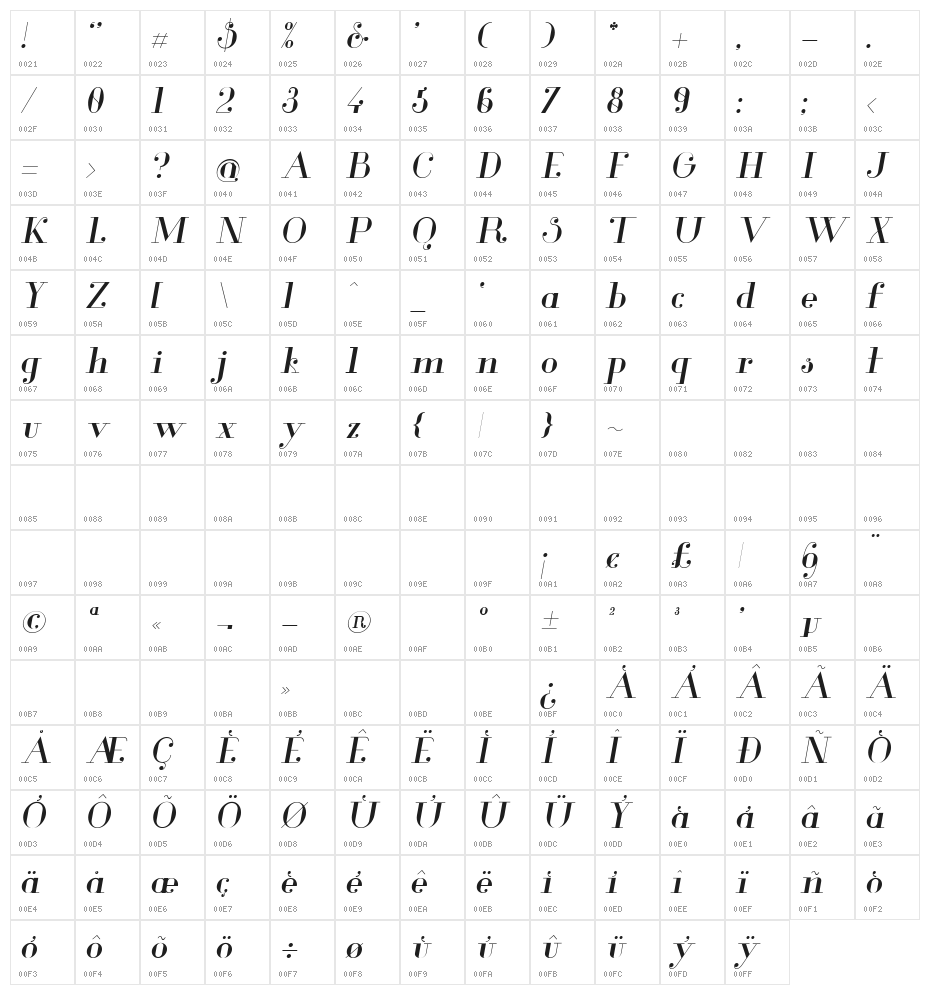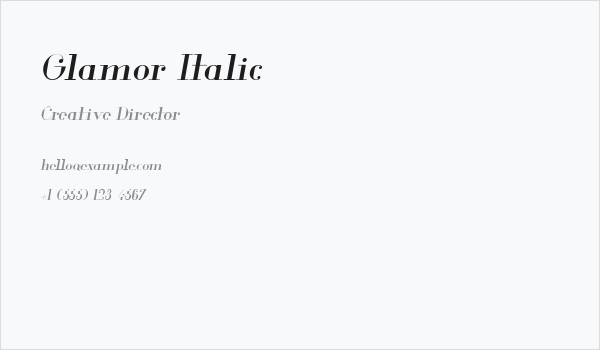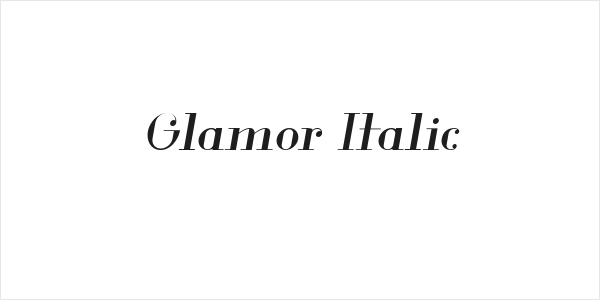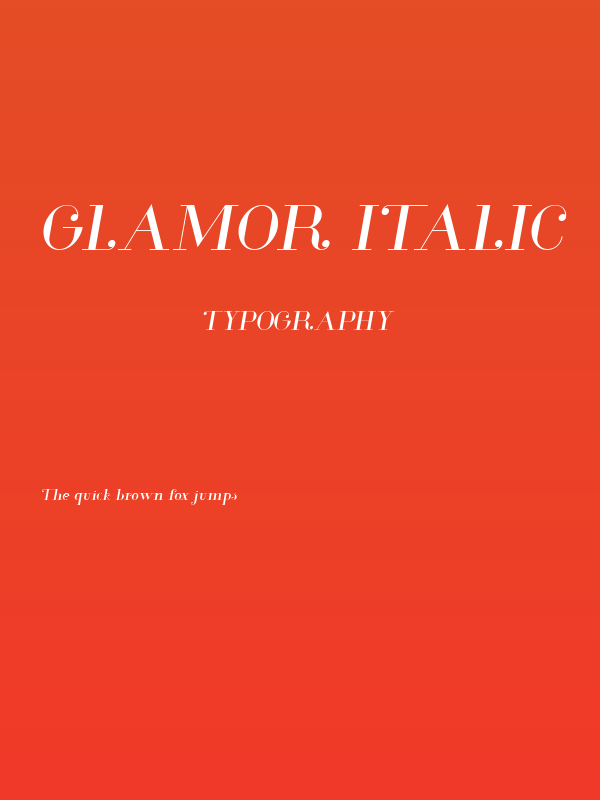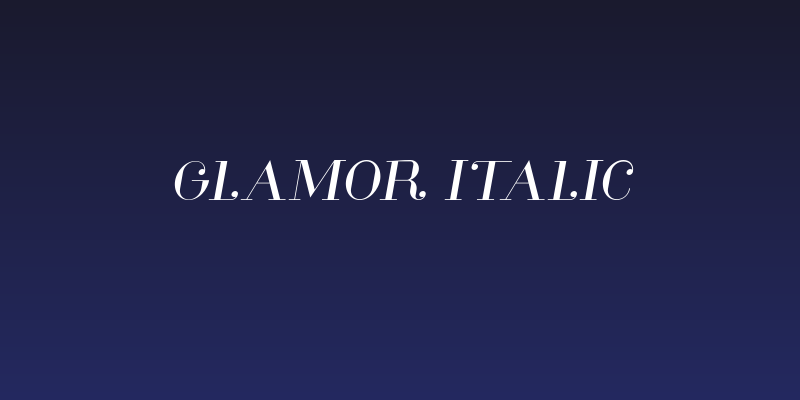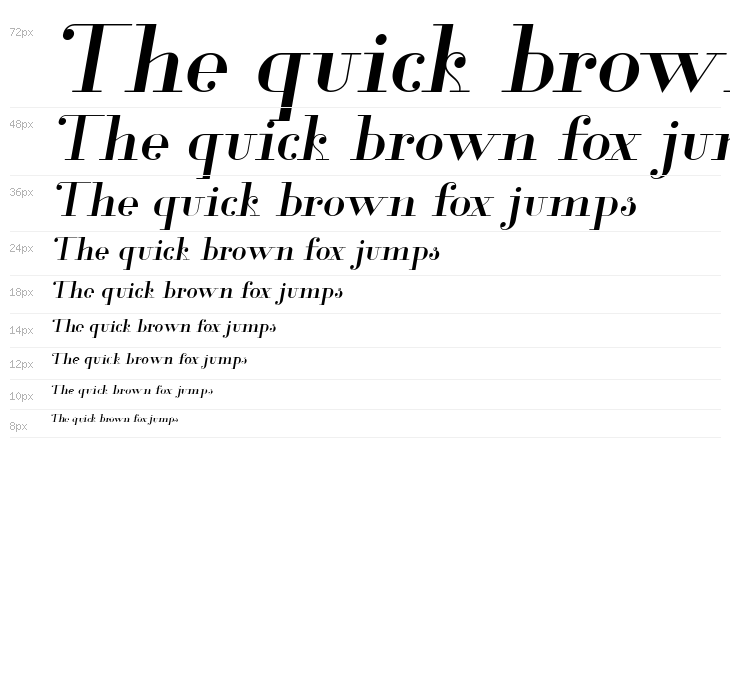
Glamor Italic Font
Glamor Italic Description
This elegant and sophisticated font features a distinct italic style with high contrast between thick and thin strokes. The characters are adorned with unique, decorative serifs that add a touch of glamour and refinement. The uppercase letters are tall and slender, while the lowercase letters maintain a consistent flow, enhancing readability. The numerals are stylishly crafted, complementing the overall aesthetic. Special characters are thoughtfully designed, maintaining the font's cohesive look. This font exudes a sense of luxury and is perfect for projects that require a touch of elegance.
Use CaseHeadlines, Logos, Invitations
Proposed ProjectsIdeal for luxury branding, wedding invitations, fashion magazines, and high-end product packaging.